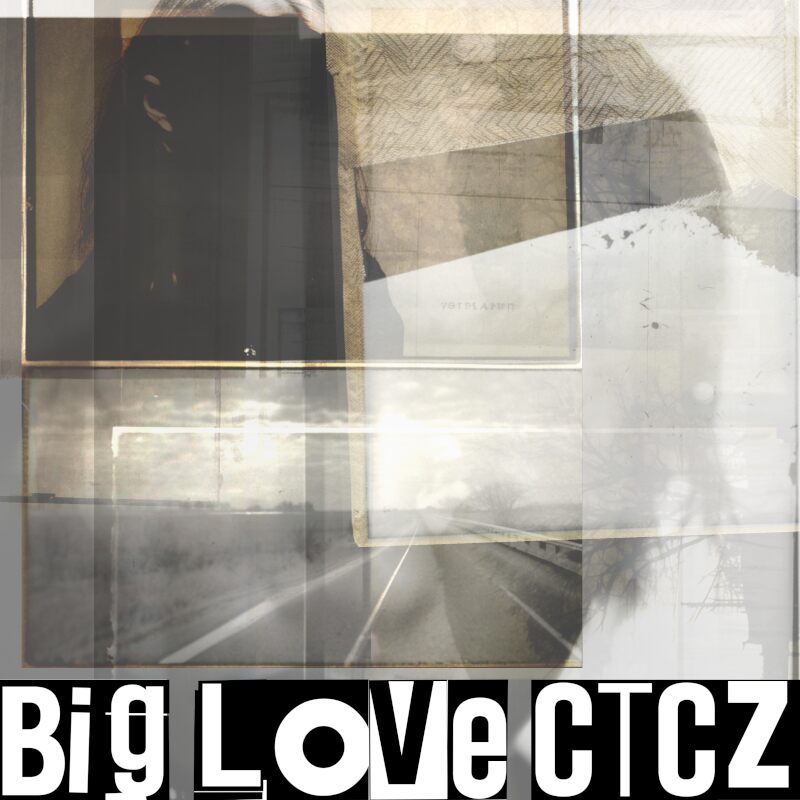
Big Love CTCZ
Big Love CTCZ font, designed by Juha Korhonen, is a condensed display font that opts for an interesting approach by showcasing distorted elements in the letterforms. Although it features straight lines and geometric forms, its atypicity highlights a negative style with select missing portions within certain characters that create unconventional texts of moderate readability levels.
Create groovy album covers that are effortlessly instant attention grabbers. Personalize music events, festival invitations or cool-brand yourself with a merch design. Prepare student ID or portfolio presentations using Big Love CTCZ to think out of the box about new concepts and ideas which can also materialize into headlines and logotypes!